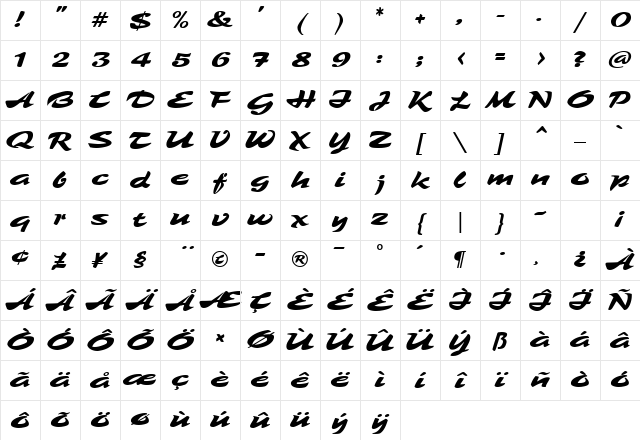
Tambo Script MF Regular Free Font
Tambo Script MF Regular
Design Context for Tambo Script MF
Tambo Script MF flows with the natural rhythm of handwritten lettering, making it ideal for designs that call for warmth and personal expression.
Font Pairing: Combine Tambo Script MF with a simple geometric sans for maximum contrast - the tension between flowing curves and clean structure is a classic typographic pairing.
Pro Tip: Use Tambo Script MF for short runs of text - names, titles, or taglines. Extended body copy in script faces tires the eye quickly.